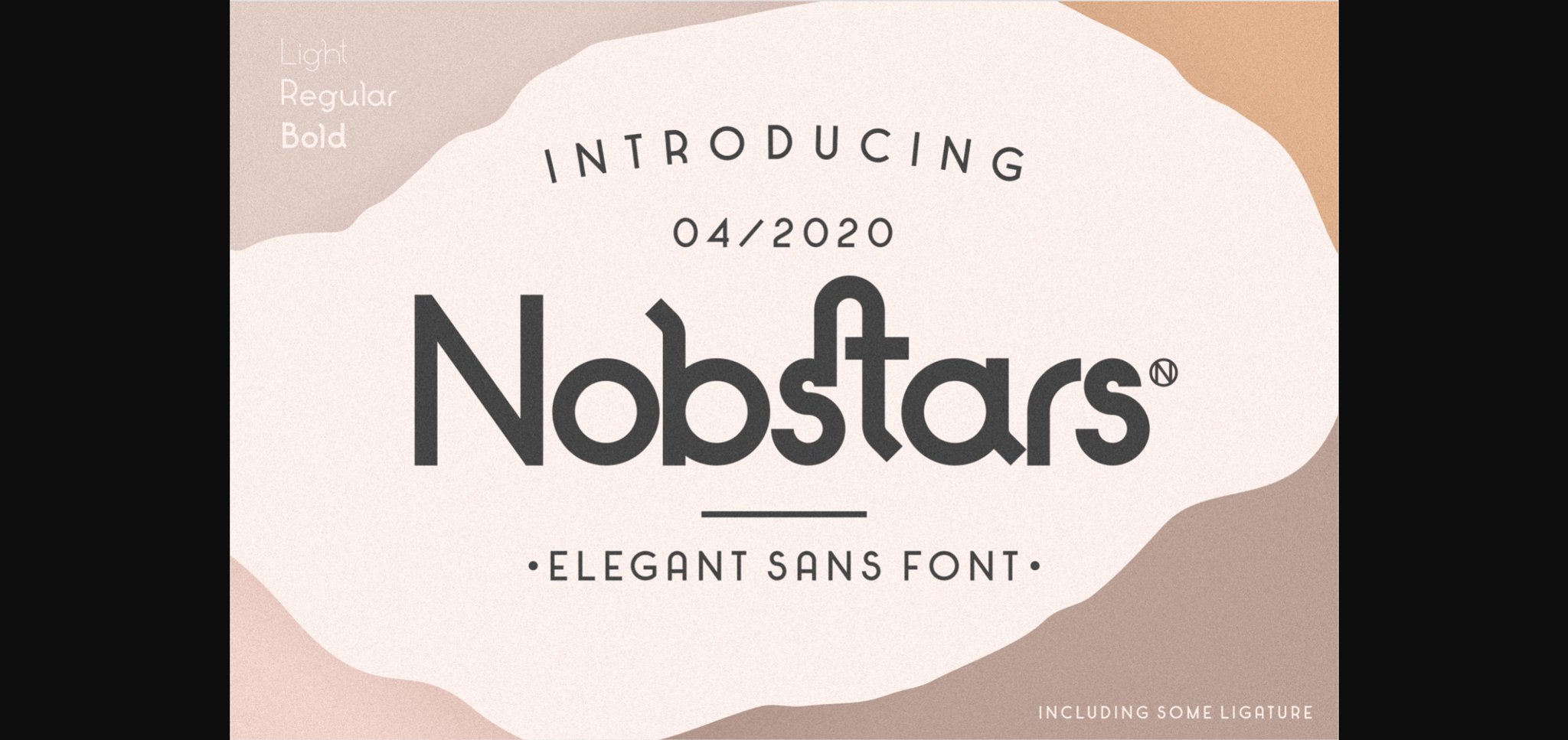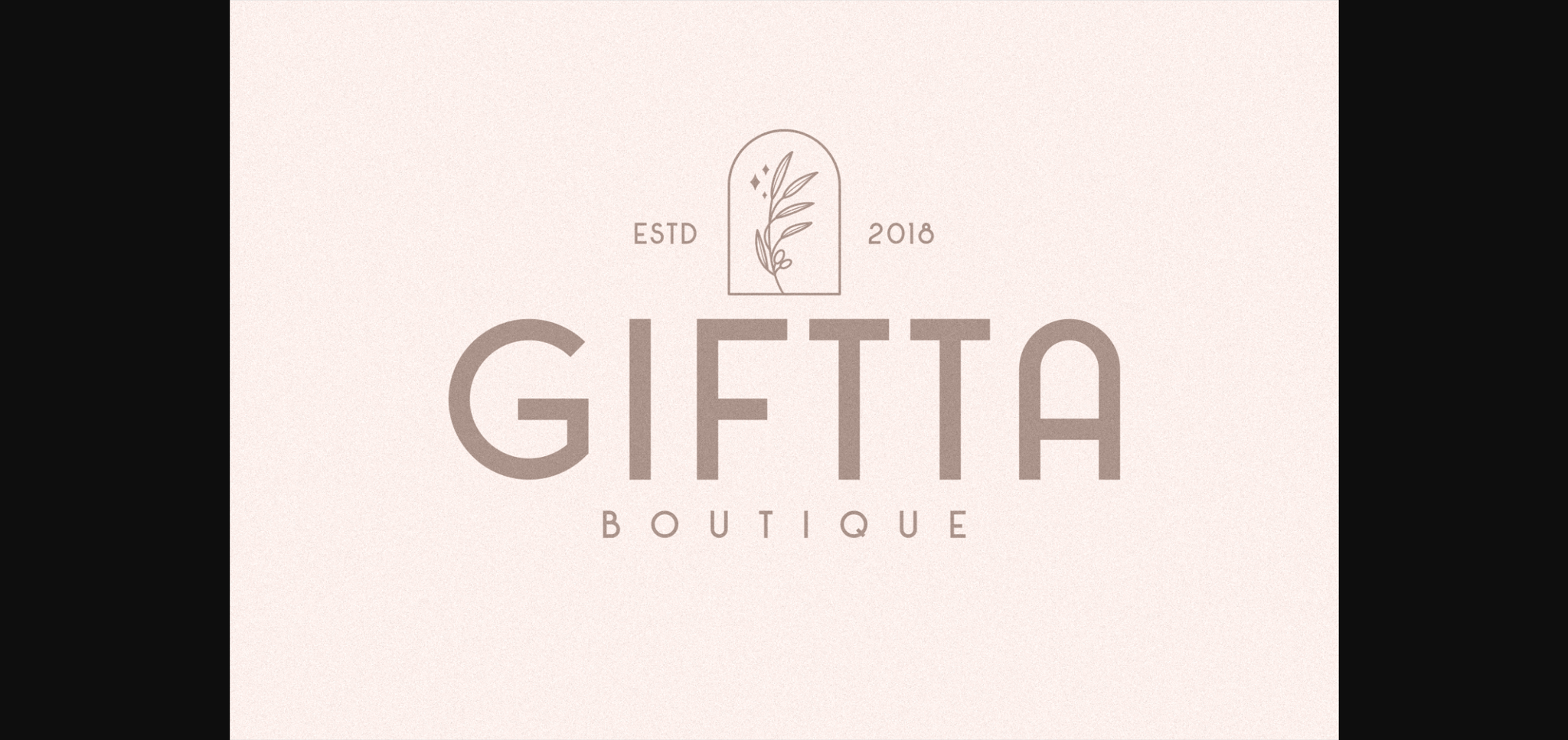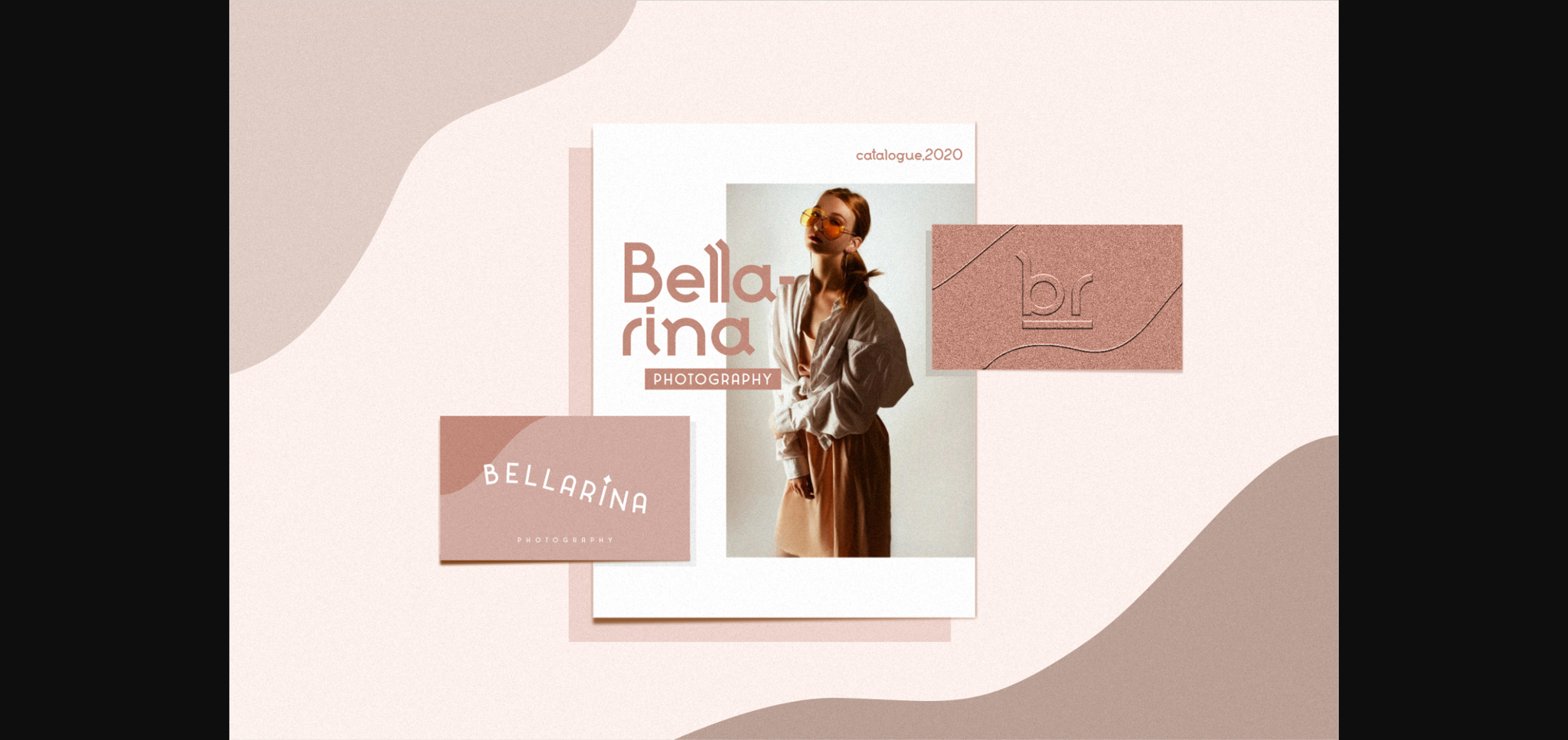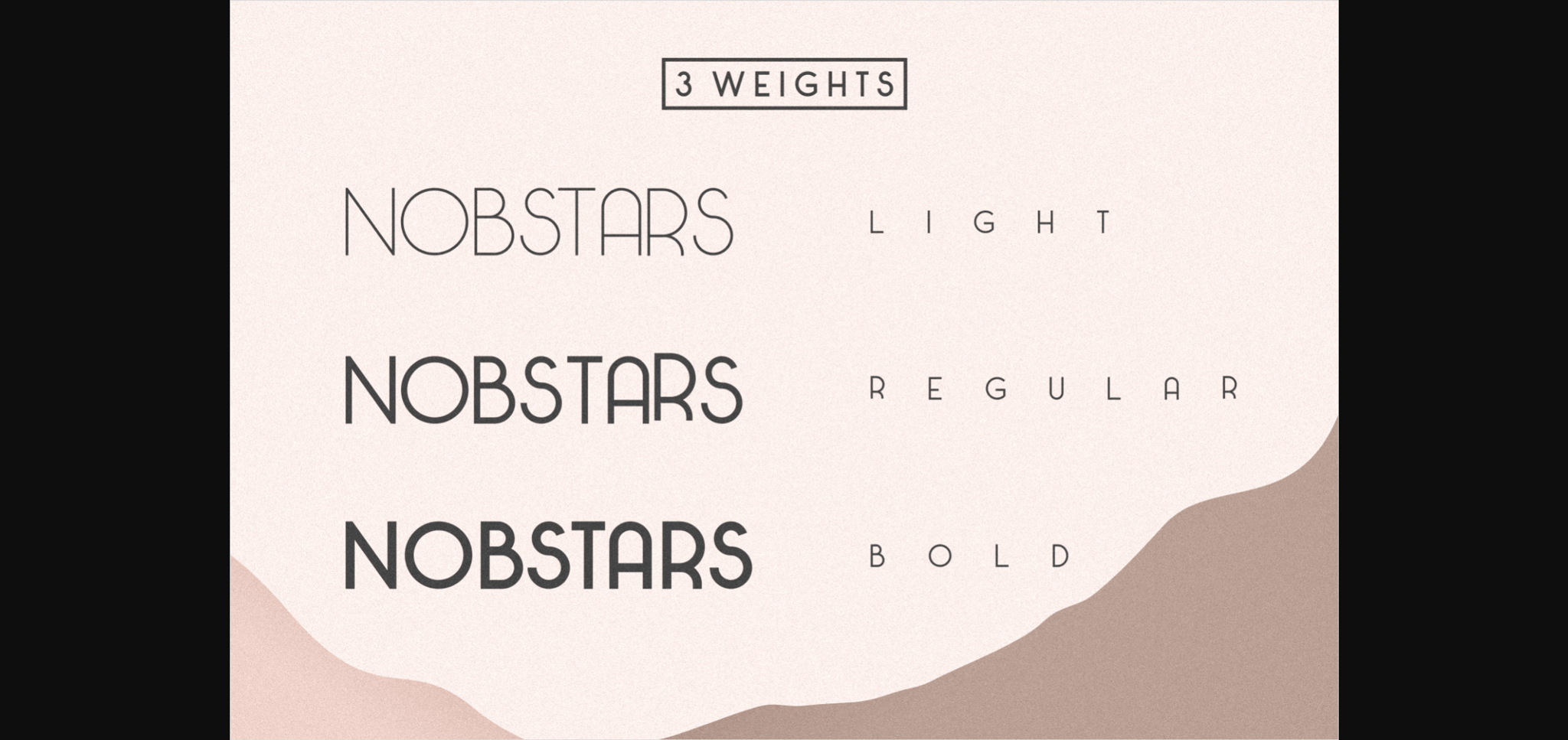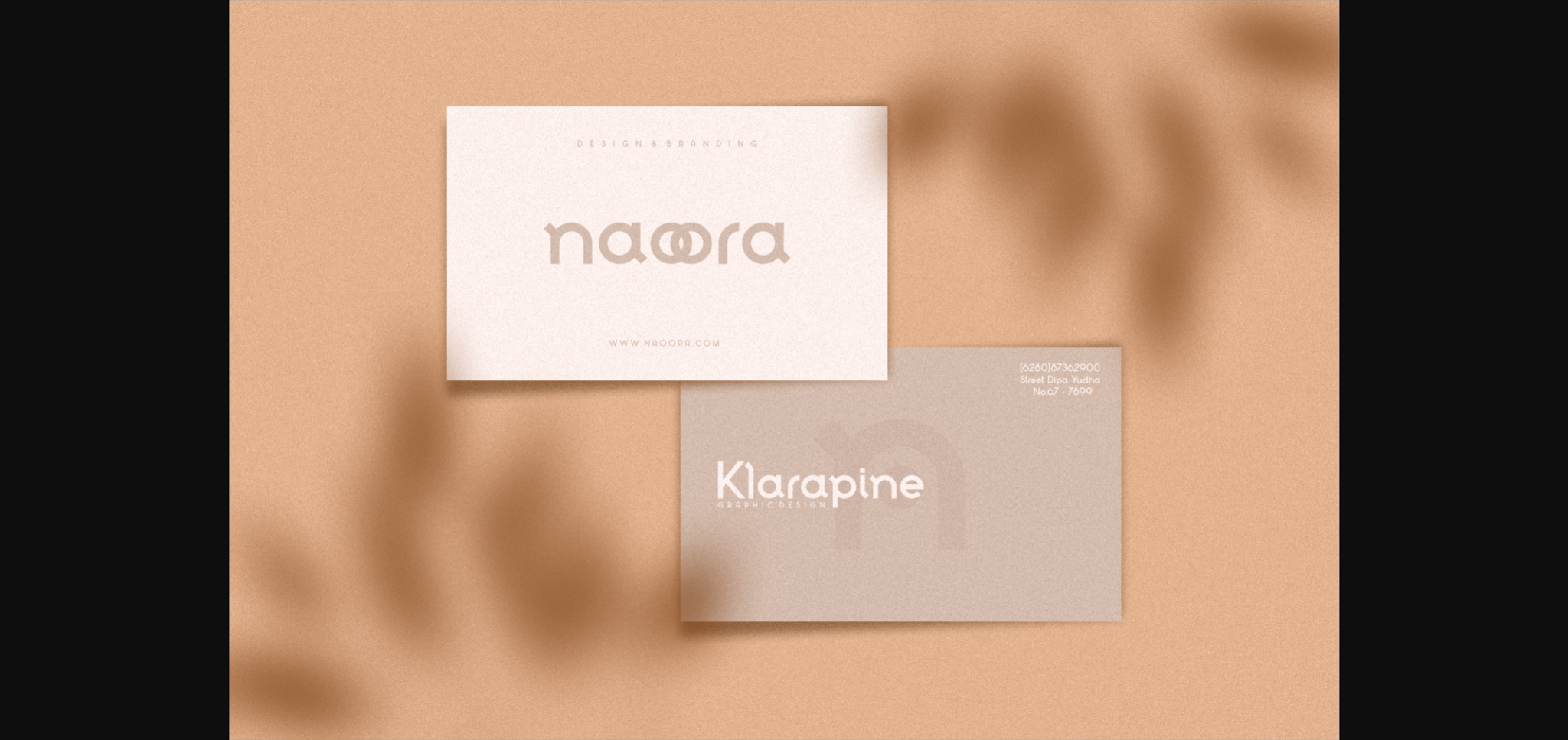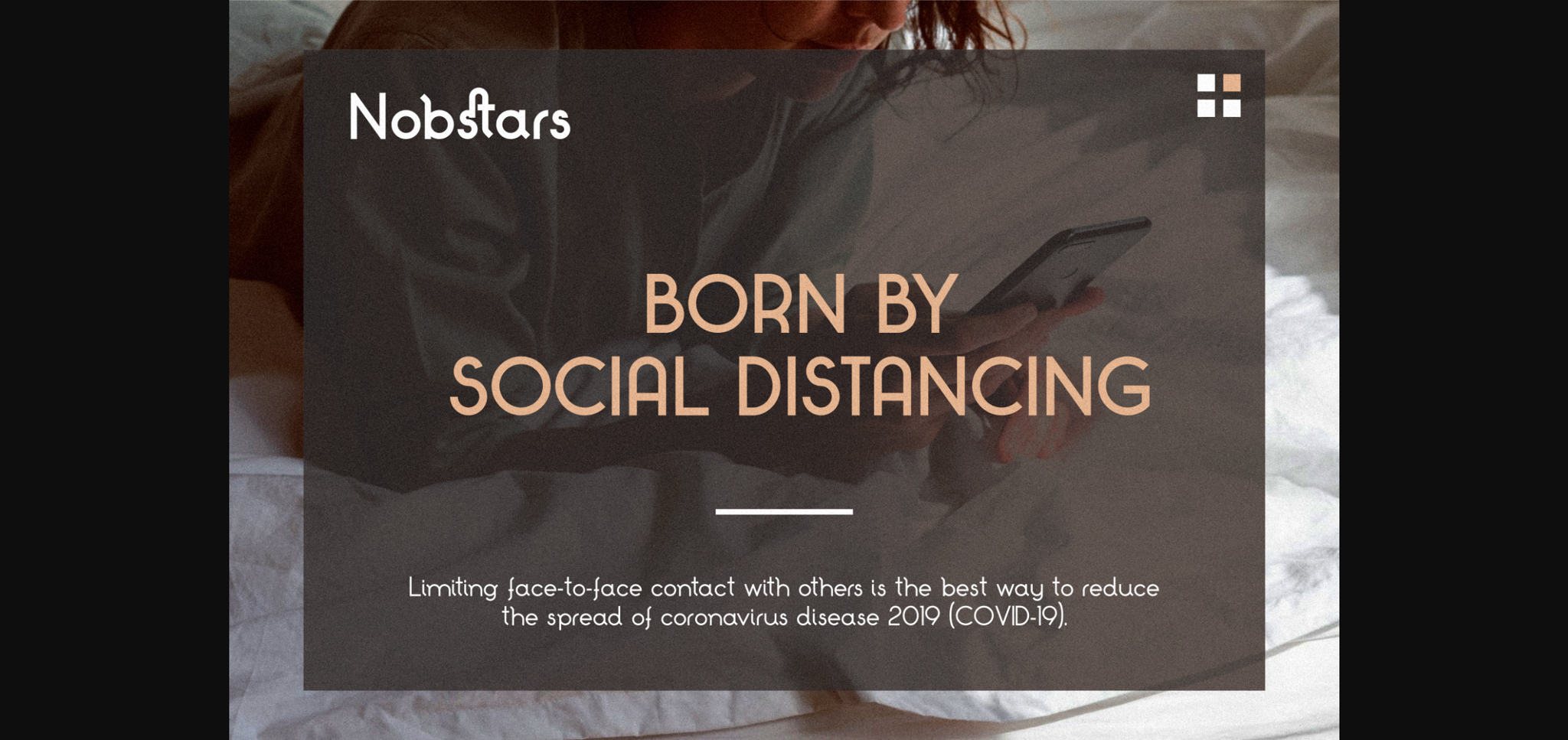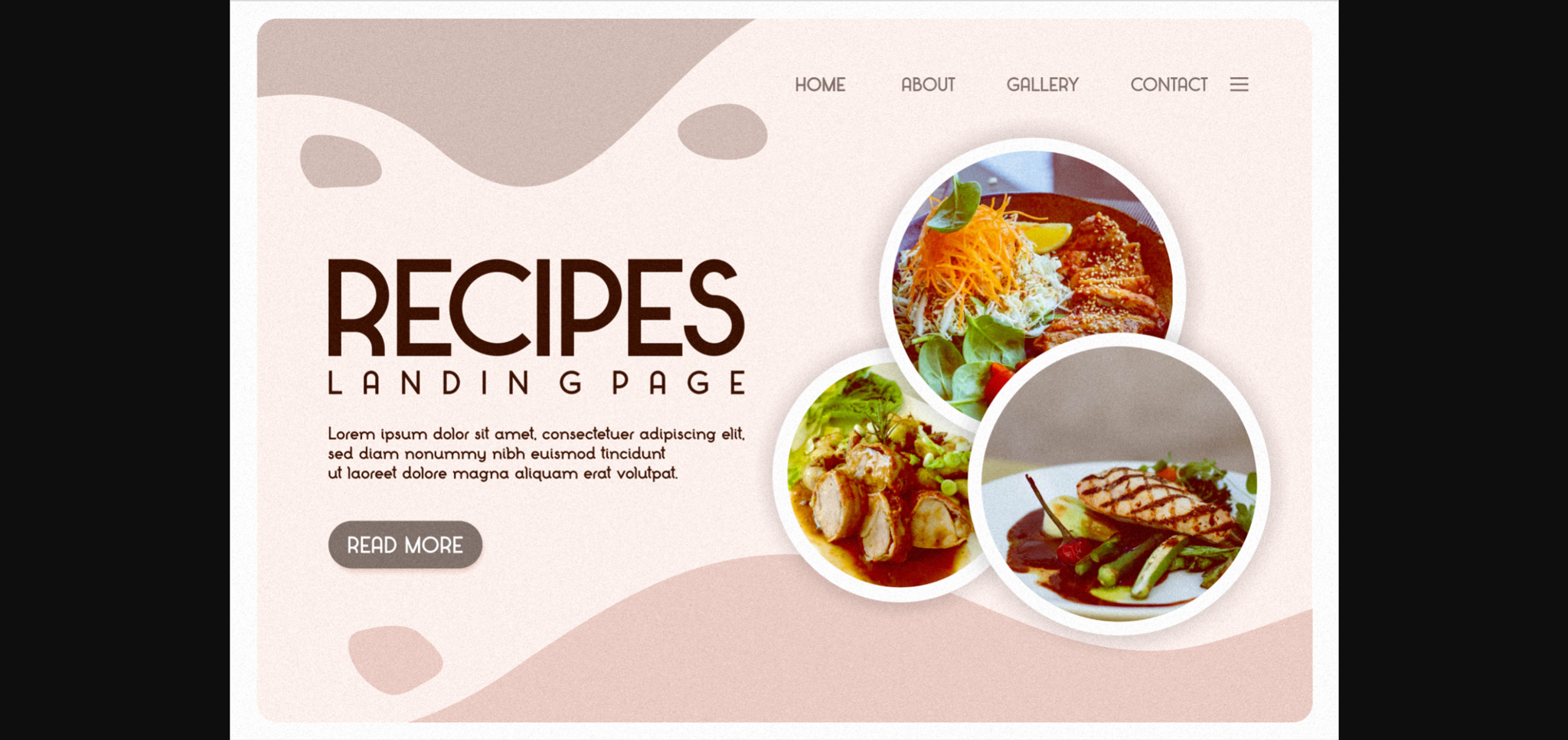
HomeSans Serif FontsNobstars Font Sans Serif Fonts Nobstars Font FacebookXPinterestWhatsApp 1 of 11 ... Nobstars Font Poster 2... Nobstars Font Poster 3... Nobstars Font Poster 4... Nobstars Font Poster 5... Nobstars Font Poster 6... Nobstars Font Poster 7... Nobstars Font Poster 8... Nobstars Font Poster 9... Nobstars Font Poster 10... Nobstars Font Poster 11... About Nobstars Font Nobstar is a simple and casual sans serif font with an undeniably clean feel. With its neat and beautiful arrangement of letters, this typeface will look outstanding in both formal and non-formal designs. DOWNLOAD NOW People also explored Crafter Dreams Font Children Font Special Butterfly Font Bestiest Script Font Protector Font Love Letter Font Grilesthy Semi-Bold Font Apelo Forte Font Attention Font 283 0 TagsNobstars Font Previous articlePrestorm FontNext articleScuper Font LEAVE A REPLY Cancel reply Comment: Please enter your comment! Name:* Please enter your name here Email:* You have entered an incorrect email address! Please enter your email address here Website: Save my name, email, and website in this browser for the next time I comment. Personal Use Free Unlock Endless Creativity with the FREE September Clipart Huge Bundle (Valued at $700!) Personal Use Free Read more about this font Where the Cookies Personal Use Free Read more about this font Kanza Personal Use Free Read more about this font Monogram Calligraphy Personal Use Free Read more about this font BLOG Using Fonts in Digital Marketing: Tips to Strengthen Your Brand Identity In the realm of digital marketing, every visual element plays a crucial role in shaping a brand's identity, and fonts are no exception. The... Top 10 Handwritten Fonts That Elevate Your Designs Where to Buy American Fonts Online in 2024 Transform Your Website: Elevate Your Typography with 7 Best Web Font Generators